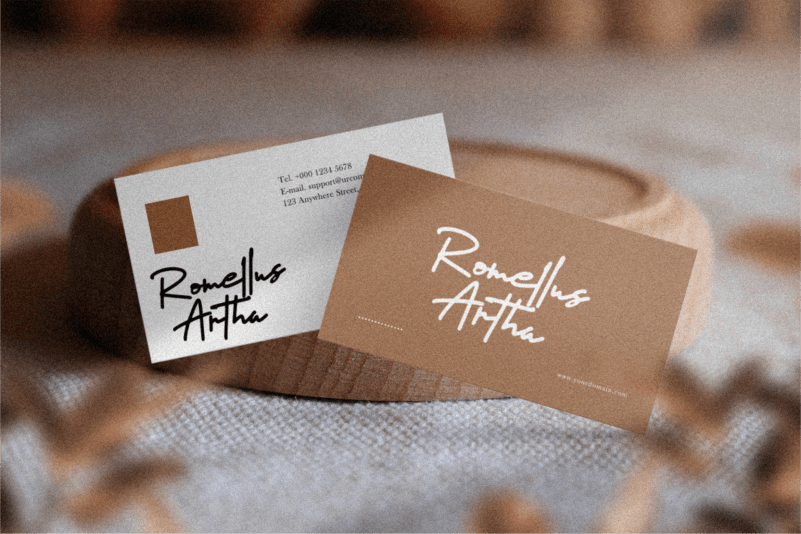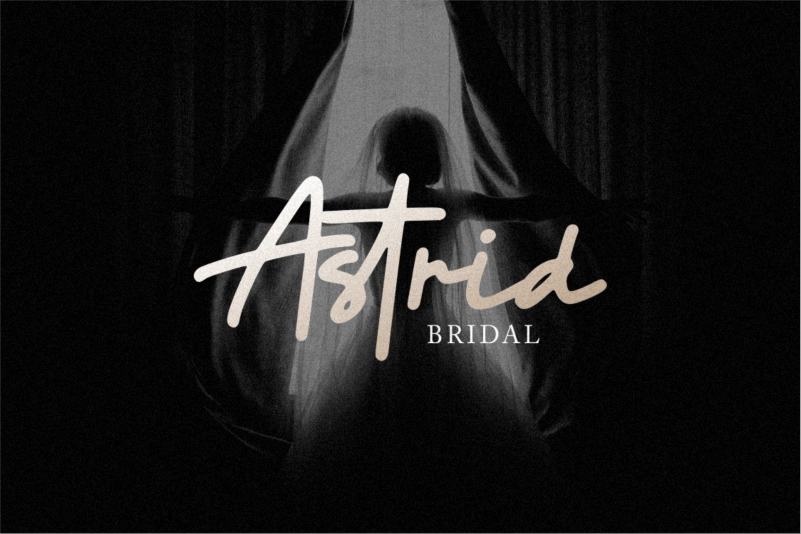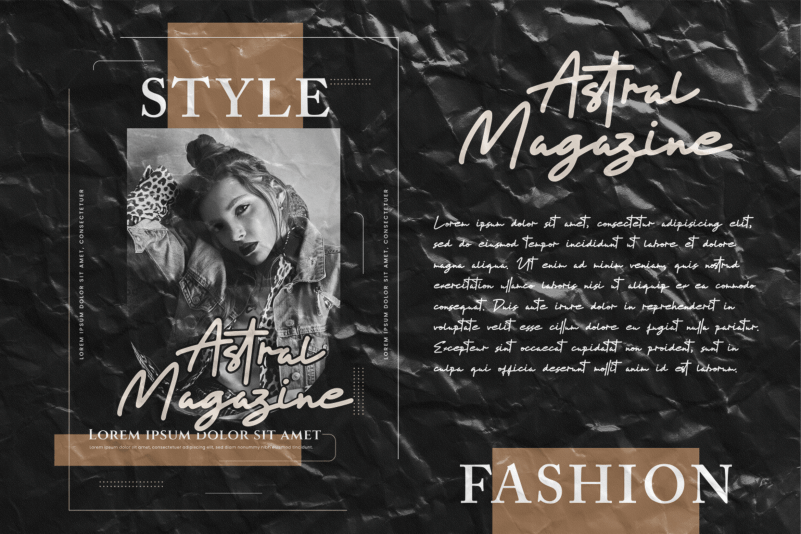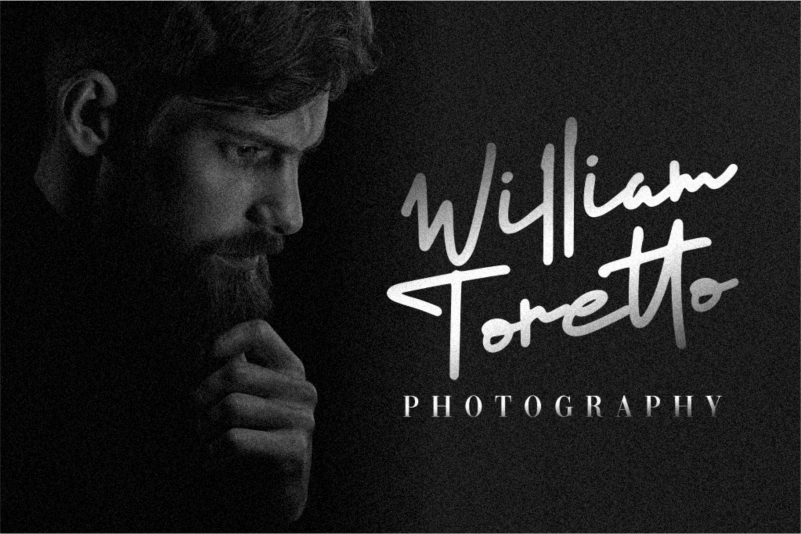
Bitter Ballen Font
Bitter Ballen Handwritten Font
This is a Signature Monoline Font. Bitter Ballen is perfect for product packaging, branding project, megazine, social media, wedding, or just used to express words above the background.
With a very beautiful & elegant touch, perfect for your creative projects. The concept of the font is different from others to use. Enjoy our work 🙂